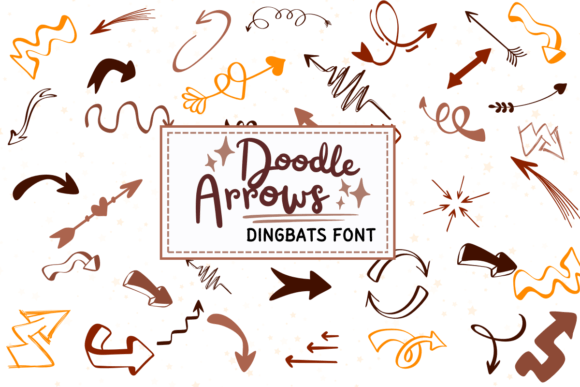
Unleash Your Creativity with the Doodle Arrows Font
Have you ever found yourself stuck in a brainstorming session, searching for the perfect visual element to bring your creative project to life? You’re not alone. As designers, we’ve all been there – pouring over fonts, colors, and shapes, hoping to find that elusive spark that makes our ideas shine. And then, it happens. You stumble upon the Doodle Arrows Font, a charming dingbats font that brings a playful touch to any design.
This sketch-style font is more than just a pretty face; it’s a versatile tool that can elevate your creative projects from ordinary to extraordinary. From wedding invitations and DIY crafts to logos and decorations, the Doodle Arrows Font is the perfect companion for any design adventure.
With its unique, hand-drawn aesthetic, this font offers endless possibilities for creative expression. Whether you’re a seasoned designer or a DIY enthusiast, the Doodle Arrows Font is a valuable addition to your toolkit, waiting to inspire your next big project.
Doodle Arrows Font Key Features
- Unique Hand-Drawn Style: The Doodle Arrows Font features a distinctive hand-drawn style, adding a touch of whimsy and personality to any design.
Doodle Arrows Font Review
I’ve had the chance to work with the Doodle Arrows Font, and I have to say it’s a unique addition to any design project. ✨ The playful, hand-drawn style of the arrows adds a touch of whimsy and personality to any layout. The font is perfect for designers looking to add a bit of fun and creativity to their work.
- Playful and creative**: The Doodle Arrows Font is perfect for designers who want to add a bit of personality to their work.
- Easy to use**: The font is relatively easy to use, even for designers who are new to working with custom fonts.
However, there are a few limitations to consider. ⚠️ The font may not be suitable for use in situations where a more formal or professional tone is required. Additionally, the font may not be as versatile as some other arrow fonts on the market.
Overall, I think the Doodle Arrows Font is a great addition to any designer’s toolkit. While it may have some limitations, the unique style and playful vibe make it a great choice for designers who want to add a bit of creativity to their work.
Tips for Getting the Most Out of Doodle Arrows Font
Use Doodle Arrows Font to add a playful and creative touch to your designs. Experiment with different font sizes, colors, and combinations to achieve the desired effect.
Doodle Arrows Font is commonly used in:
- Children’s educational materials
- Marketing and advertising materials